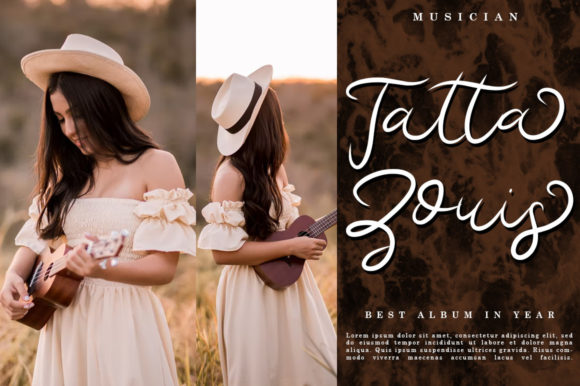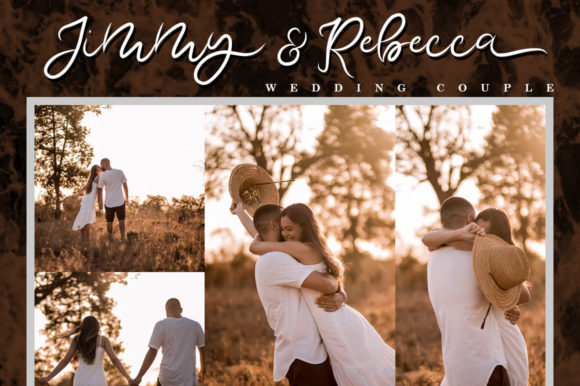
Beautiful British Font
db-ku.com - Script & Handwritten -- Beautiful British is a stylish, simple, elegant, and adaptable handwritten font. You can successfully add this elegant font to wedding invitations, business cards, greetings cards, social media posts, wall art, website and more. This font is PUA encoded which means you can access all of the glyphs and swashes with ease.